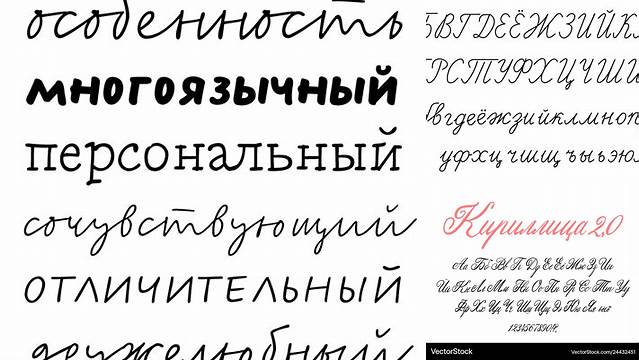
Elegant Free Russian Cursive Fonts For Your Designs
Are you looking to add a touch of elegance and authenticity to your designs? Look no further than the beautiful world of Russian cursive fonts. Russian cursive, with its flowing lines and distinct letterforms, can bring a unique flair to any project, from invitations and branding materials to digital art and web design. In this comprehensive guide, we'll delve into the best resources for finding free fonts russian cursive, explore the nuances of this captivating script, and provide tips for effectively using these fonts in your creative endeavors.
Understanding Russian Cursive
Before we dive into where to find free fonts russian cursive, let's first understand what makes this script so special. Russian cursive, also known as handwritten Russian or script Russian, is the handwritten form of the Russian alphabet. It differs significantly from the block letters typically seen in printed materials. The letters in cursive are connected, creating a flowing and often intricate appearance. This unique characteristic adds a personal and artistic touch, making it a popular choice for designs that aim to convey elegance, tradition, or a sense of history.
The history of Russian cursive is deeply intertwined with the evolution of the Cyrillic alphabet itself. Over centuries, the script has undergone various transformations, influenced by different calligraphic styles and regional variations. The modern form of Russian cursive, which is what we typically encounter today, has its roots in the 18th century and continues to be the standard for handwriting in Russia and other Slavic countries that use the Cyrillic alphabet.
One of the key features of Russian cursive is the ligatures, which are the connections between letters. These ligatures can vary depending on the combination of letters and the individual's handwriting style. This inherent variability gives Russian cursive its characteristic fluidity and makes it a visually rich and dynamic script. However, it also means that different cursive fonts can have quite different appearances, which is something to keep in mind when selecting a font for your project. Some fonts may lean towards a more traditional, formal style, while others may have a more contemporary and playful feel. Understanding the nuances of these styles can help you choose the perfect font to match your desired aesthetic.
- DaFont: DaFont is a massive repository of free fonts, including a wide variety of Russian cursive styles. However, it's crucial to pay attention to the license for each font on DaFont, as they vary. Some fonts are free for personal use only, while others allow for commercial use. Always check the license information provided by the font author before using a font from DaFont in a commercial project. DaFont's extensive collection means that you're likely to find a font that perfectly matches your needs, whether you're looking for a traditional script or a more contemporary design. The website's search and filter options make it relatively easy to navigate the vast library, but it's still essential to exercise caution and verify the license details for each font you download. DaFont also features a section for newly added fonts, allowing you to stay up-to-date with the latest offerings from font designers around the world.